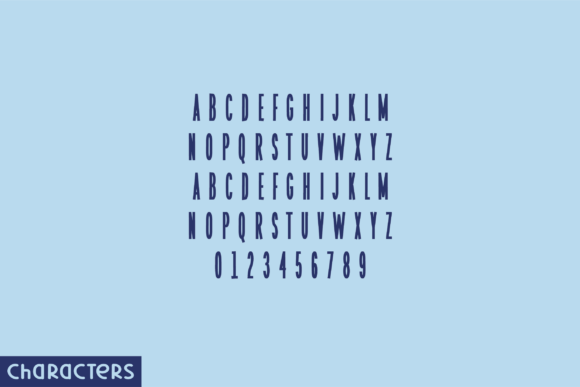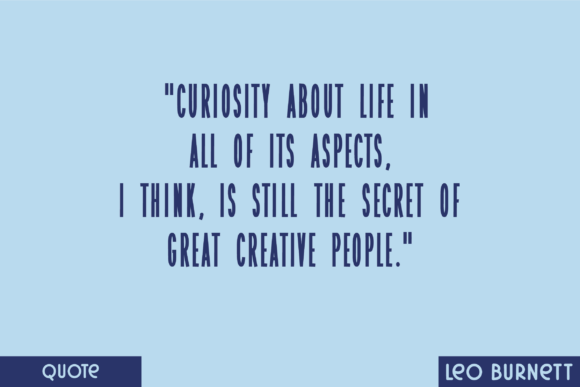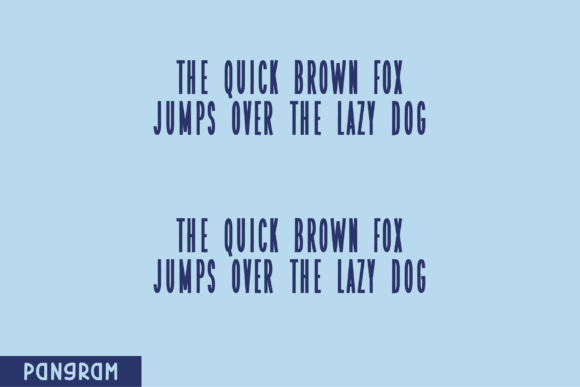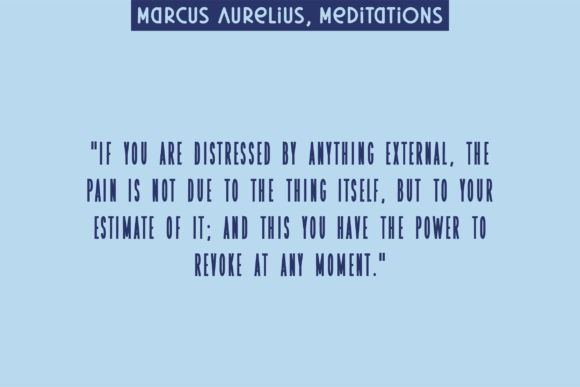
Discover the Unique Charm of Figuaro Font: A Natural Handwritten Delight
In the world of typography, fonts play a crucial role in conveying messages, expressing emotions, and adding personality to designs. Among the numerous fonts available, Figuaro Font stands out for its distinctive natural handwritten style, making it a perfect choice for designers and crafters looking to add a personal touch to their creations. In this article, we’ll dive into the unique features of Figuaro Font, its uses, and why it’s a great addition to your font collection.
The Unique Feature of Figuaro Font
Figuaro Font boasts a unique characteristic that sets it apart from other handwritten fonts: it is crafted without changing a single node in each character’s indentation. This attention to detail results in a font that exudes a sense of authenticity and naturalness, as if written with a pen or pencil on paper. The subtle irregularities and quirks of handwritten script give Figuaro Font its charm, making it perfect for designs that require a personal and human touch.
Figuaro Font’s versatility makes it suitable for a wide range of design projects, including:
• Quotes and Inspirational Messages: Add a touch of elegance and sophistication to your quotes and inspirational messages with Figuaro Font. Its natural, handwritten style conveys emotions and makes the text more relatable.
• Notes and Journaling: Use Figuaro Font to add a personal touch to your notes, journal entries, and planners. Its unique style will make your handwritten notes stand out.
• T-Shirts and Apparel: Figuaro Font is perfect for designing t-shirts, hoodies, and other apparel. Its distinctive style will add a touch of personality to your designs.
• Product Design: Whether you’re designing stationery, packaging, or branding materials, Figuaro Font is an excellent choice. Its natural, handwritten style will add a human touch to your products.
Why Designers and Crafters Love Figuaro Font
Designers and crafters appreciate Figuaro Font for several reasons:
• Unique Style: Figuaro Font’s distinctive style sets it apart from other fonts, making it a great choice for designers looking to create unique and eye-catching designs.
• Easy to Read: Despite its handwritten nature, Figuaro Font is easy to read, making it perfect for body text and longer passages.
Get Creative with Figuaro Font
Whether you’re a designer, crafter, or simply a font enthusiast, Figuaro Font is a great addition to your collection. Its natural, handwritten style and unique features make it perfect for a wide range of design projects. So, get creative and explore the possibilities with Figuaro Font!